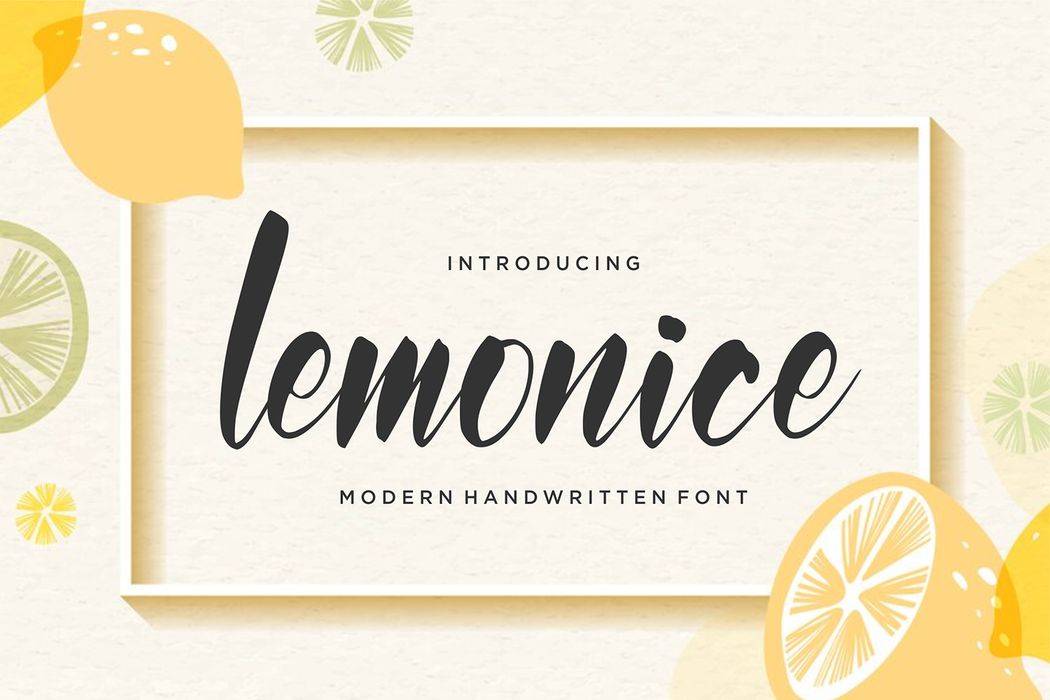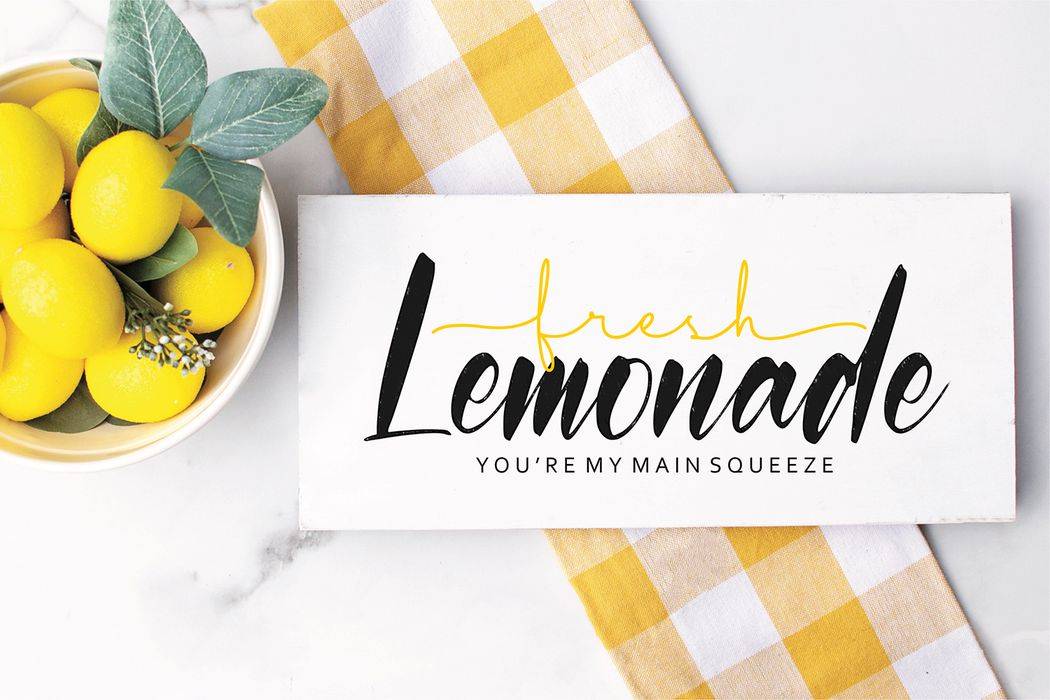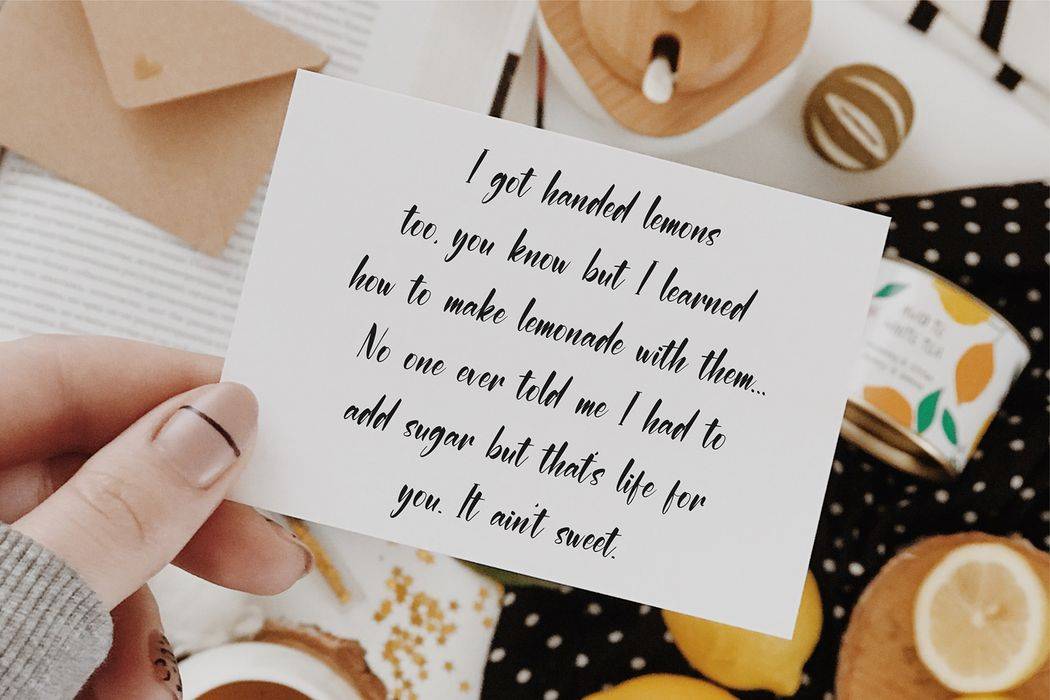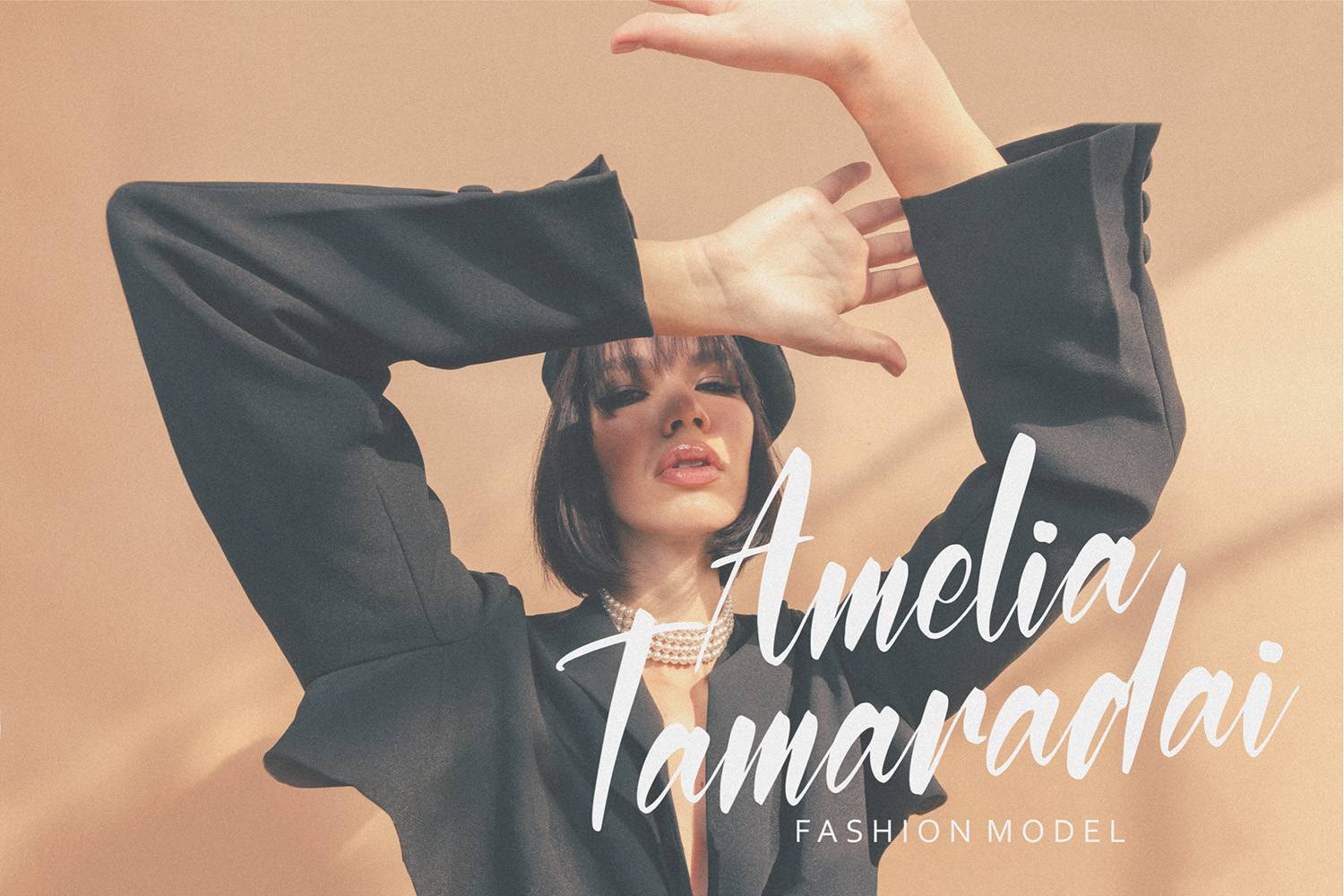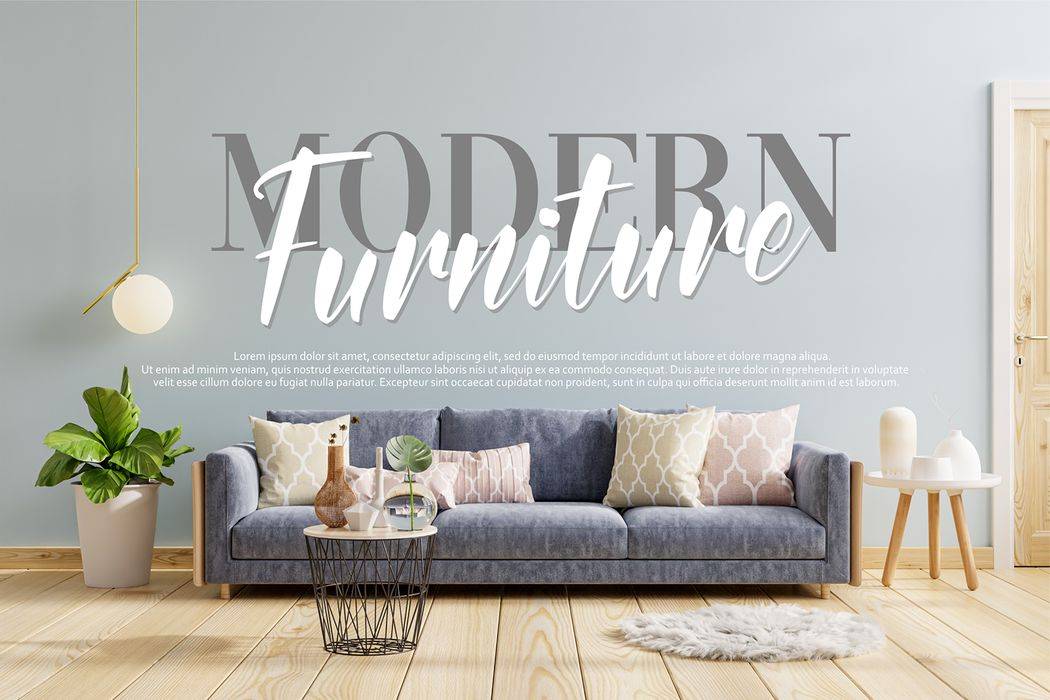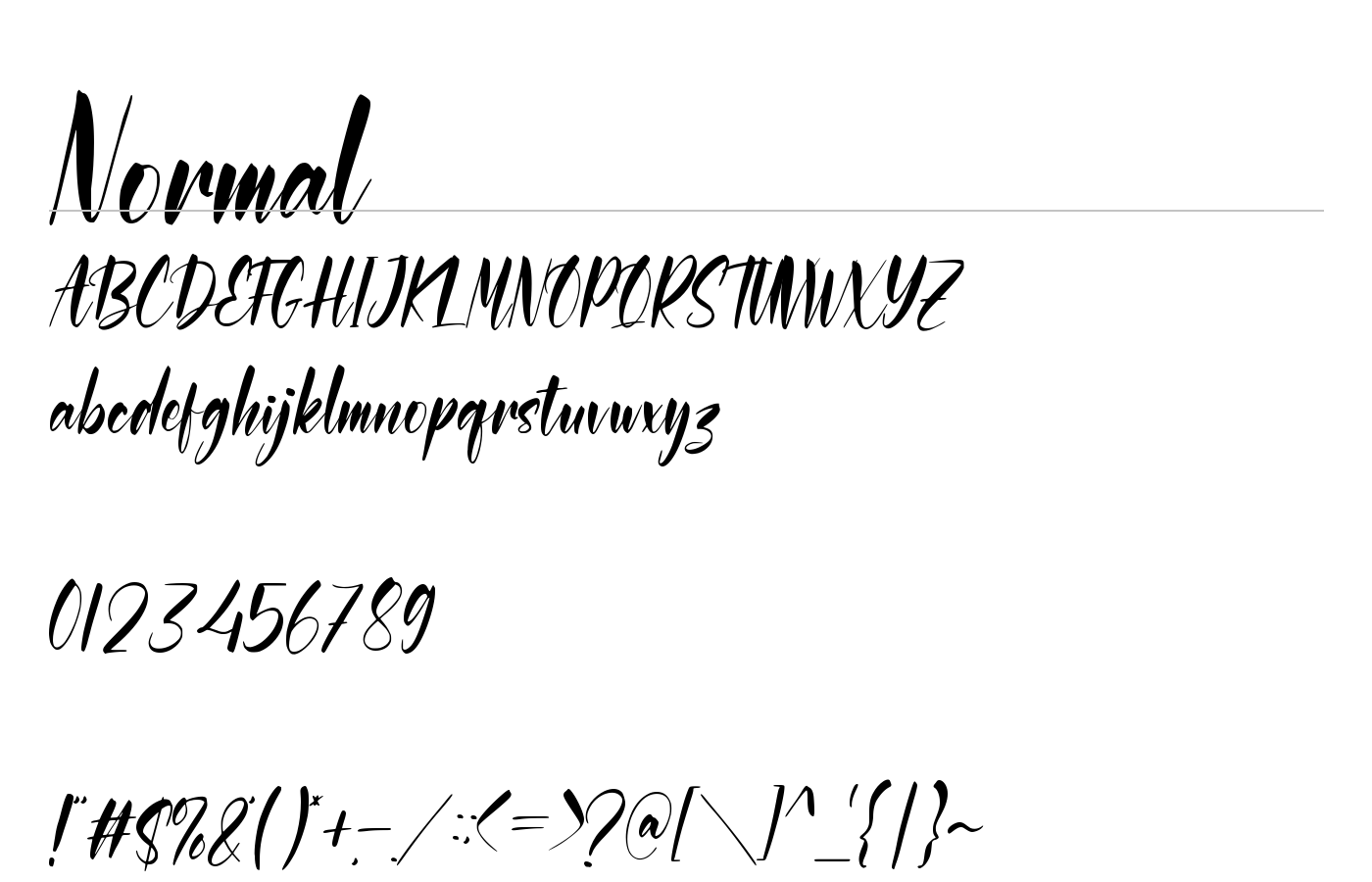
Lemonice is a lively and elegant script font featuring a dynamic, brush-like stroke with varied thickness that gives it a hand-painted feel. Its tall, narrow characters with fluid connections and sharp, organic edges make it perfect for stylish branding, invitations, and creative headlines that seek a personal and energetic touch. This font works beautifully in designs that want to convey sophistication paired with casual charm.
Lemonice Font